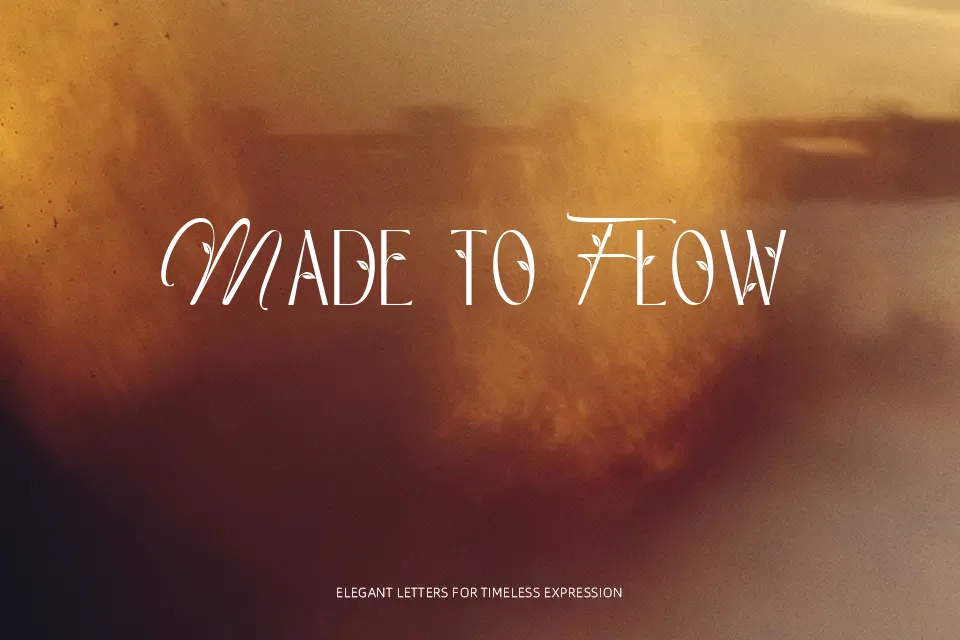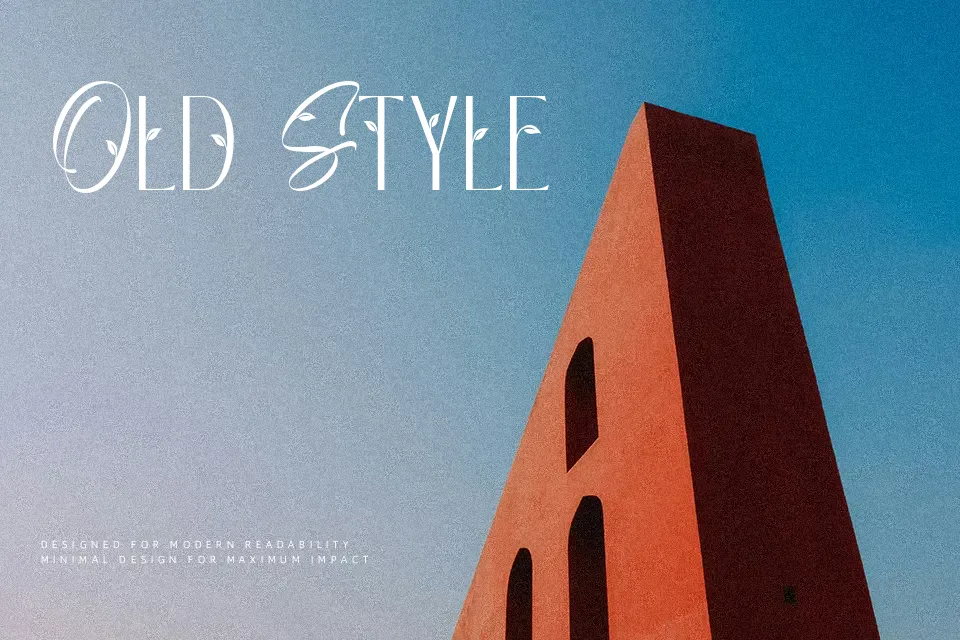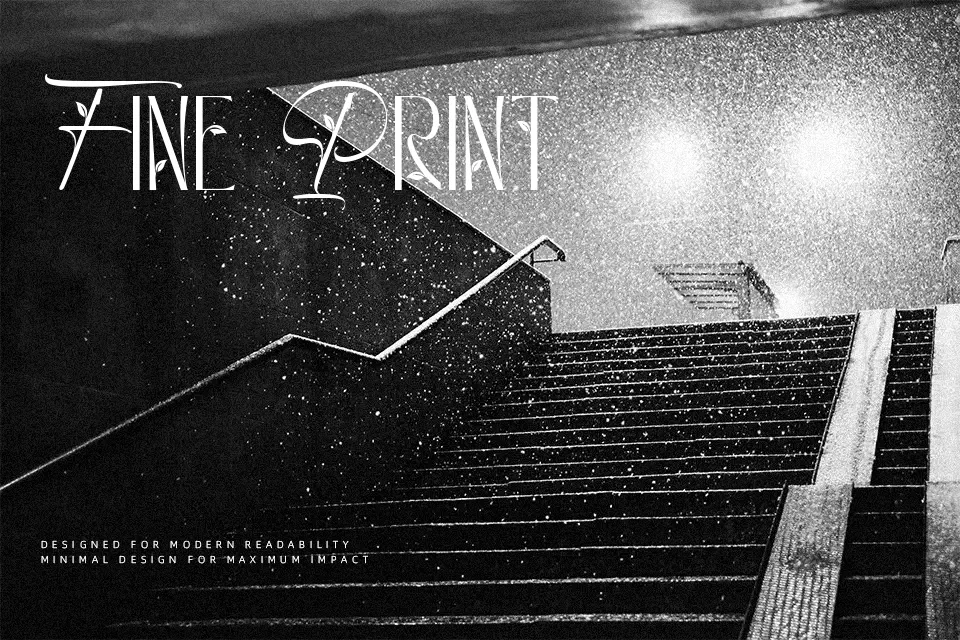
Bremoleaf Font
Bremoleaf combines flowing script forms with leaf-inspired terminals and swashes, so every stroke feels organic and slightly whimsical. The letters lean toward a medium weight with consistent curves, giving good legibility at display sizes but looking cramped in smaller text blocks. Its personality sits between romantic and artistic: decorative enough for wedding suites, skincare or eco-brand logos, product packaging, and seasonal social graphics, especially when you want a hand-crafted, nature-forward accent rather than a full text workhorse. It struggles in long paragraphs, UI copy, or strict corporate layouts where a simpler sans or serif will read cleaner and feel more neutral.
botanical or eco-focused branding and logos
wedding invitations and event stationery with a natural theme
posters or social media graphics needing a nature-inspired headline script
body text or long reading passages at small sizes
highly formal corporate documents or minimalist tech brands
interfaces, captions, or accessibility-critical text where clarity must come first
Perfect for branding, invitation, and logo, with a artistic and decorative style.